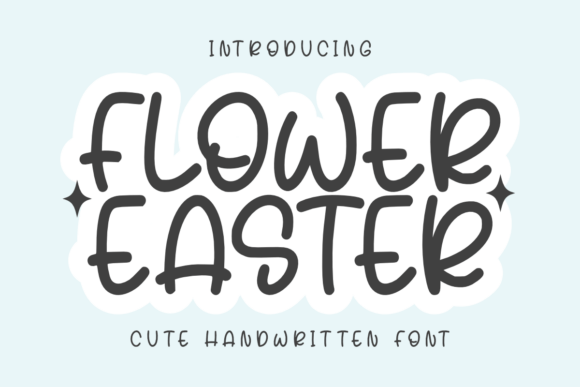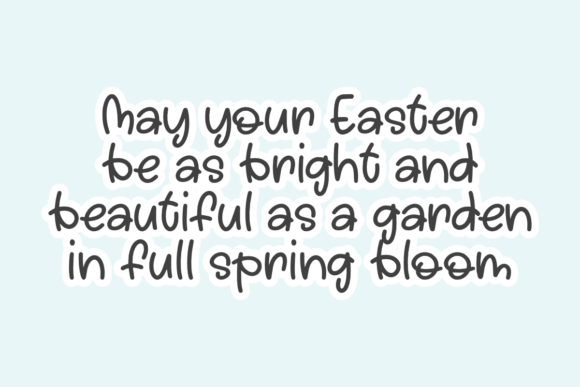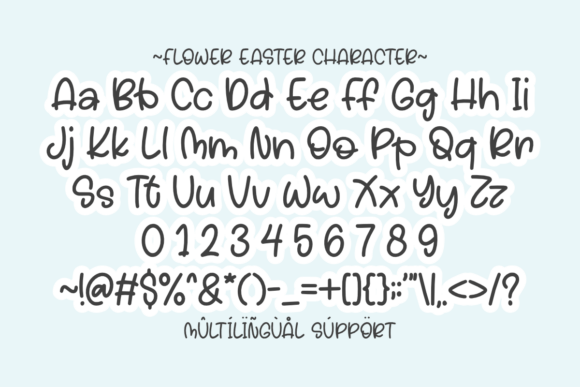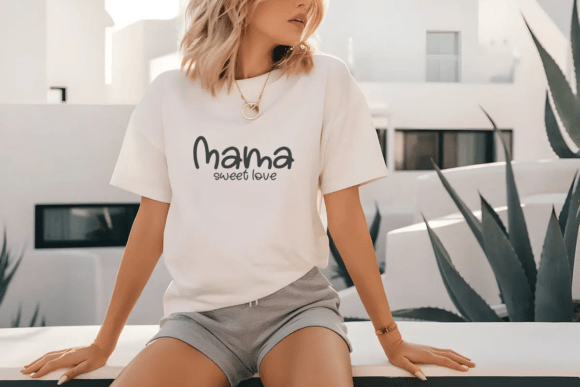
Flower Easter Font
About the Flower Easter Font
Meet Flower Easter Font, a stunning font that brings a touch of elegance and professionalism to any design. Flower Easter is a cute and playful handwritten font, perfect for planners, stickers, cards, quotes, and craft projects. Ideal for creative moms who love DIY, journaling, and Cricut crafts!
Its playful, hand-drawn quality makes it excellent for projects requiring a lighthearted and approachable feel, such as children’s books, invitations, social media graphics, and branding for small businesses with a friendly, artisanal image. Avoid using it for large blocks of body text or UI elements where readability is paramount; the informal nature may hinder legibility.
Flower Easter pairs well with clean sans-serif fonts like Open Sans or Lato for a balanced contrast, or a more geometric sans-serif like Futura for a modern twist. A simple serif like Garamond could add a touch of classic elegance, grounding the playful script. Avoid pairing it with other highly decorative or script fonts to prevent visual clutter.
The font’s overall personality is undeniably cheerful and informal, conveying a sense of handmade charm and youthful energy. It is best suited for projects where a lighthearted and approachable aesthetic is desired.